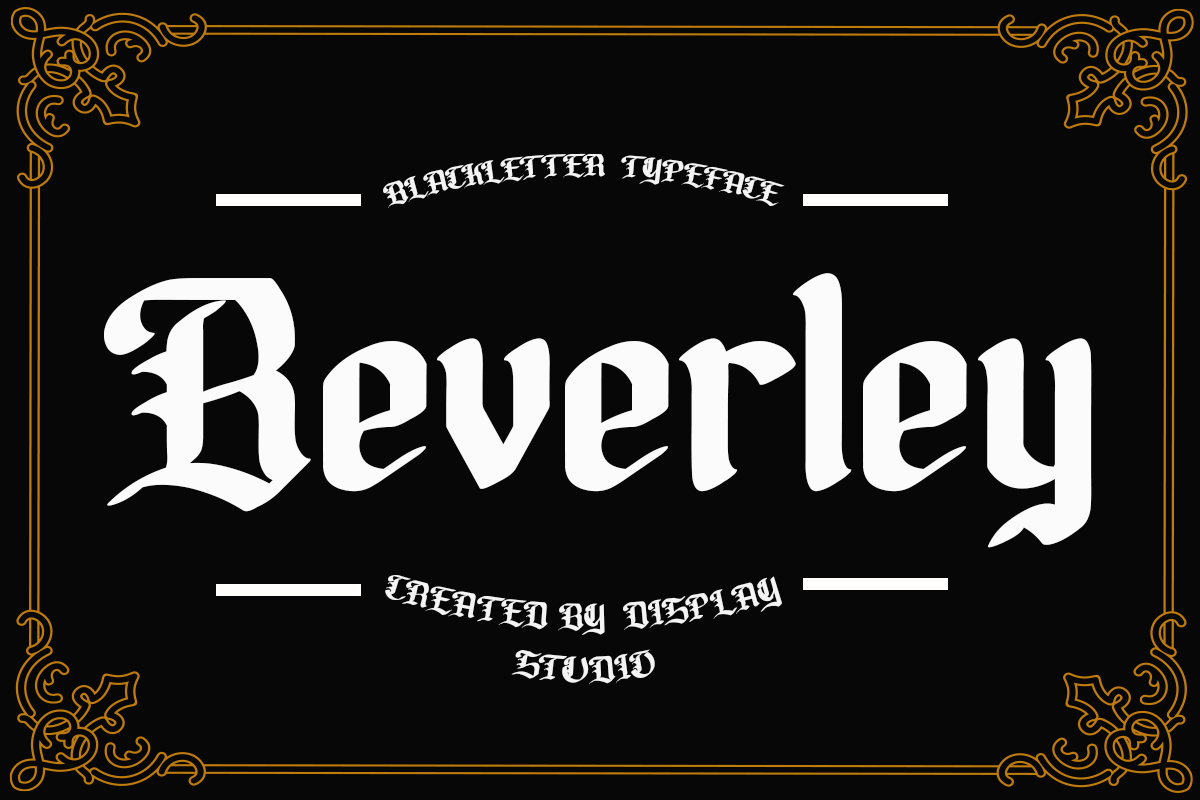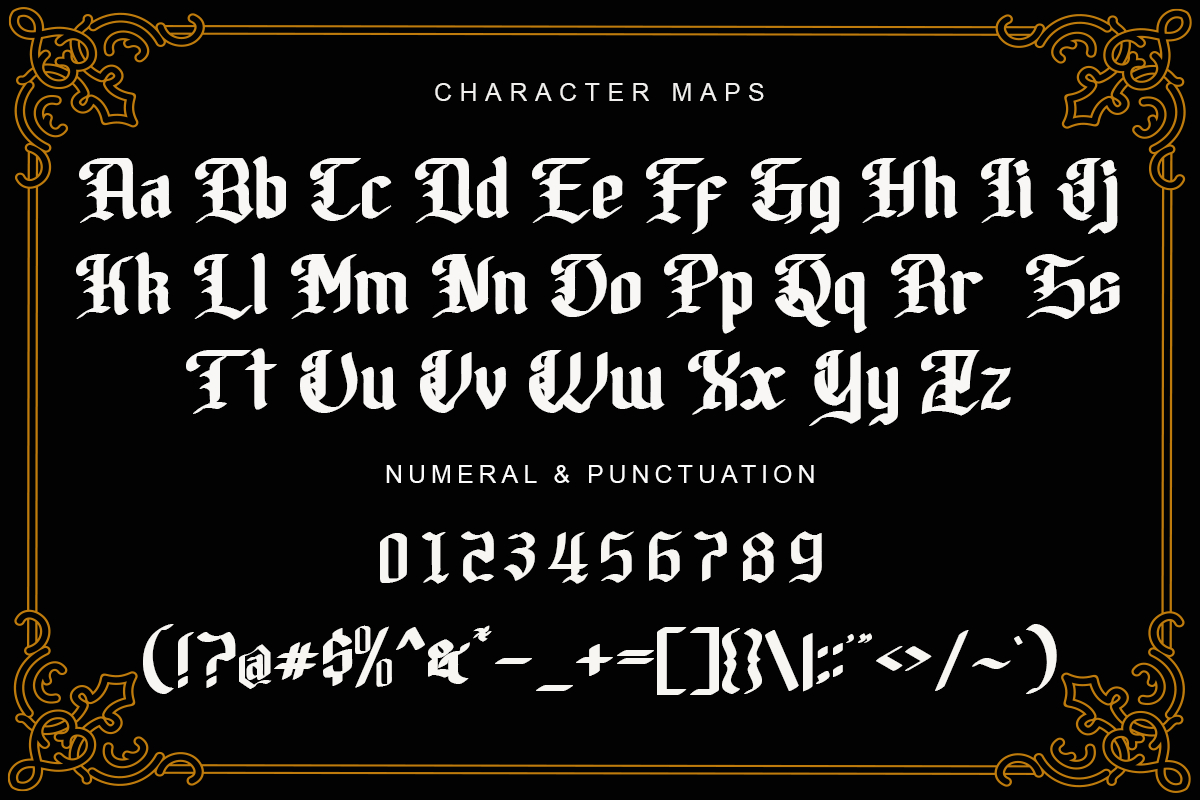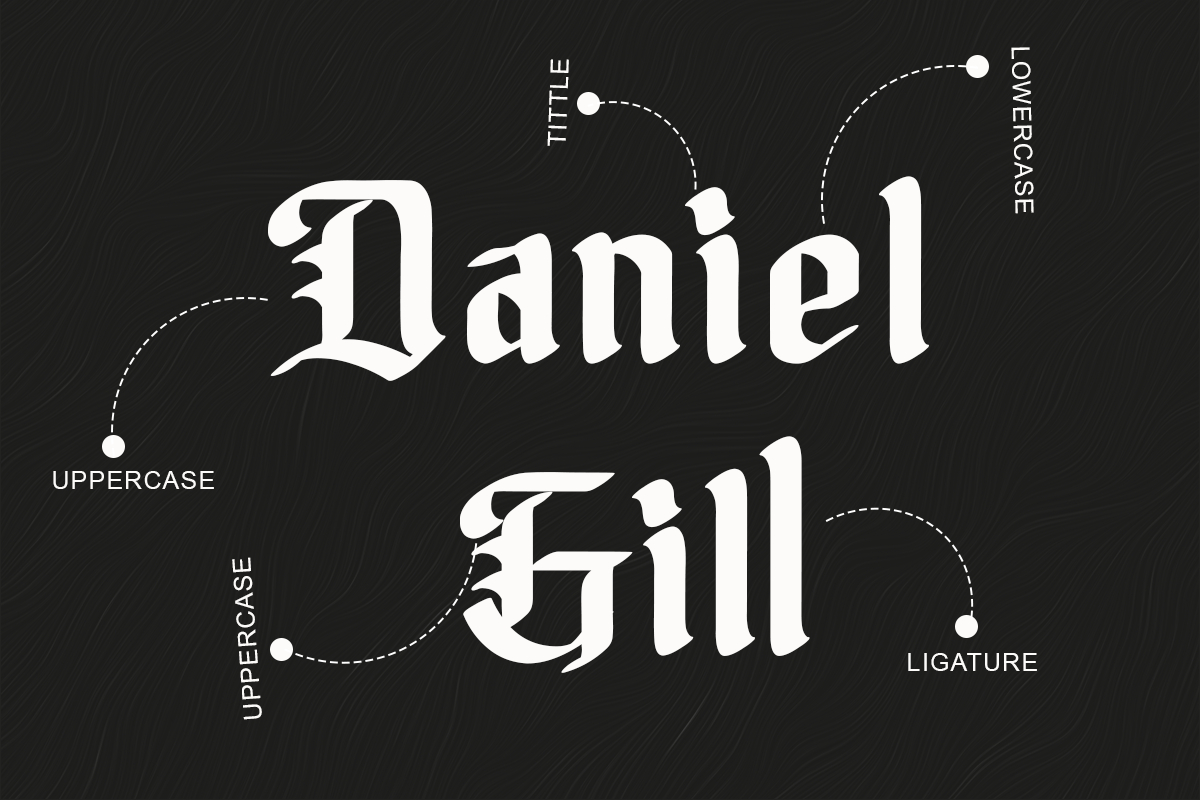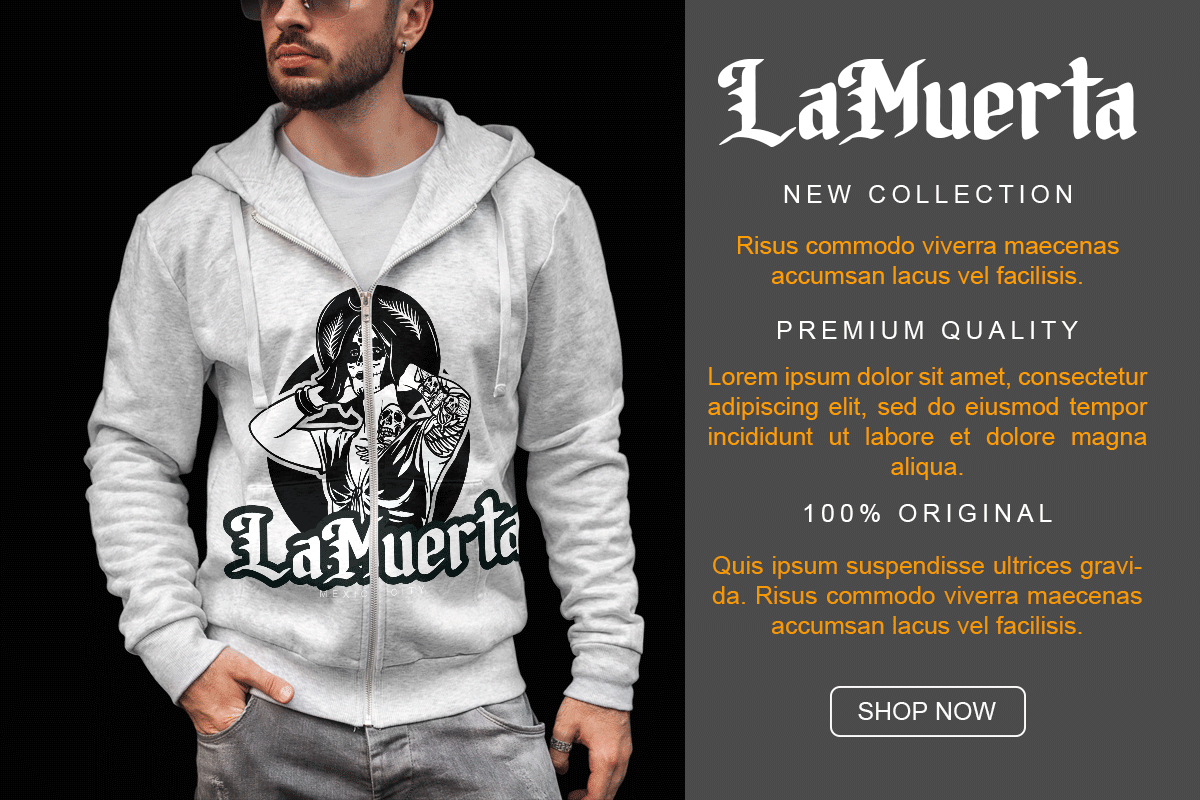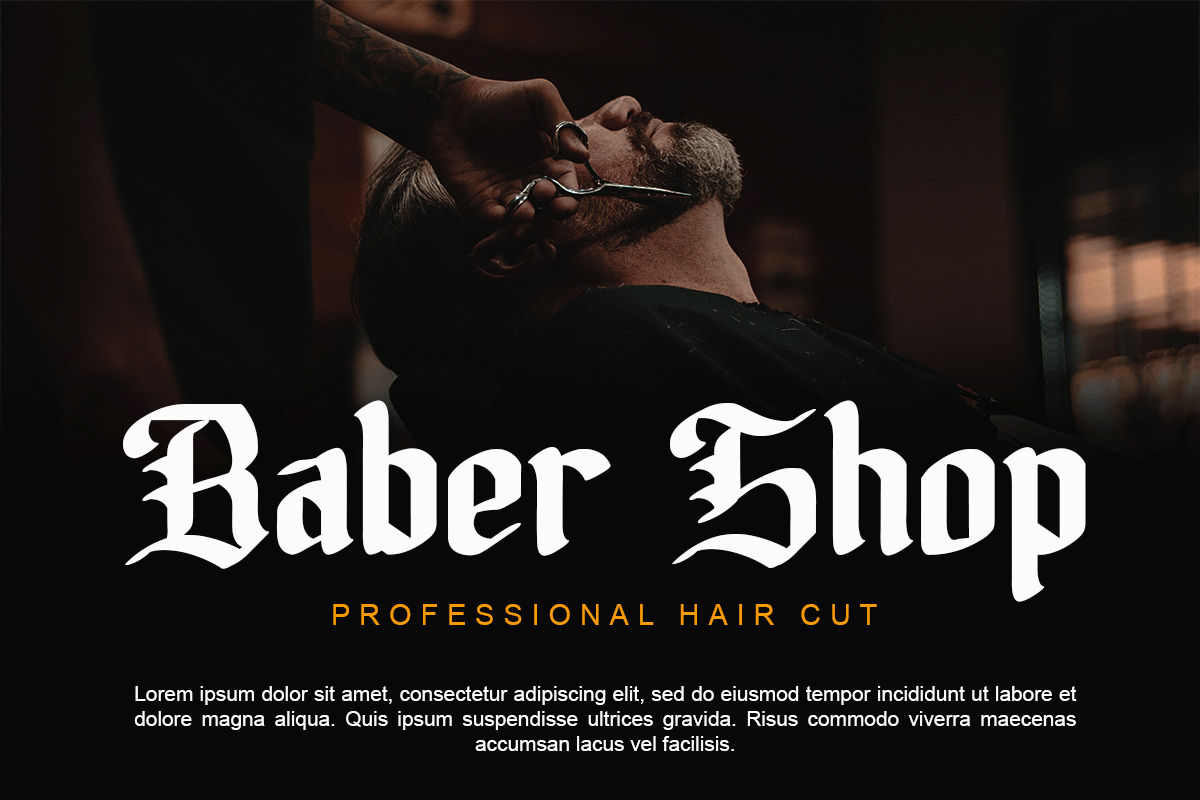
Beverley Font
About Beverley Font
Beverley is a bold and paint brushed blackletter font. Whether you’re using it for crafts, digital design, presentations, or making greeting cards, this font has the potential to become your favorite go-to font, no matter the occasion!